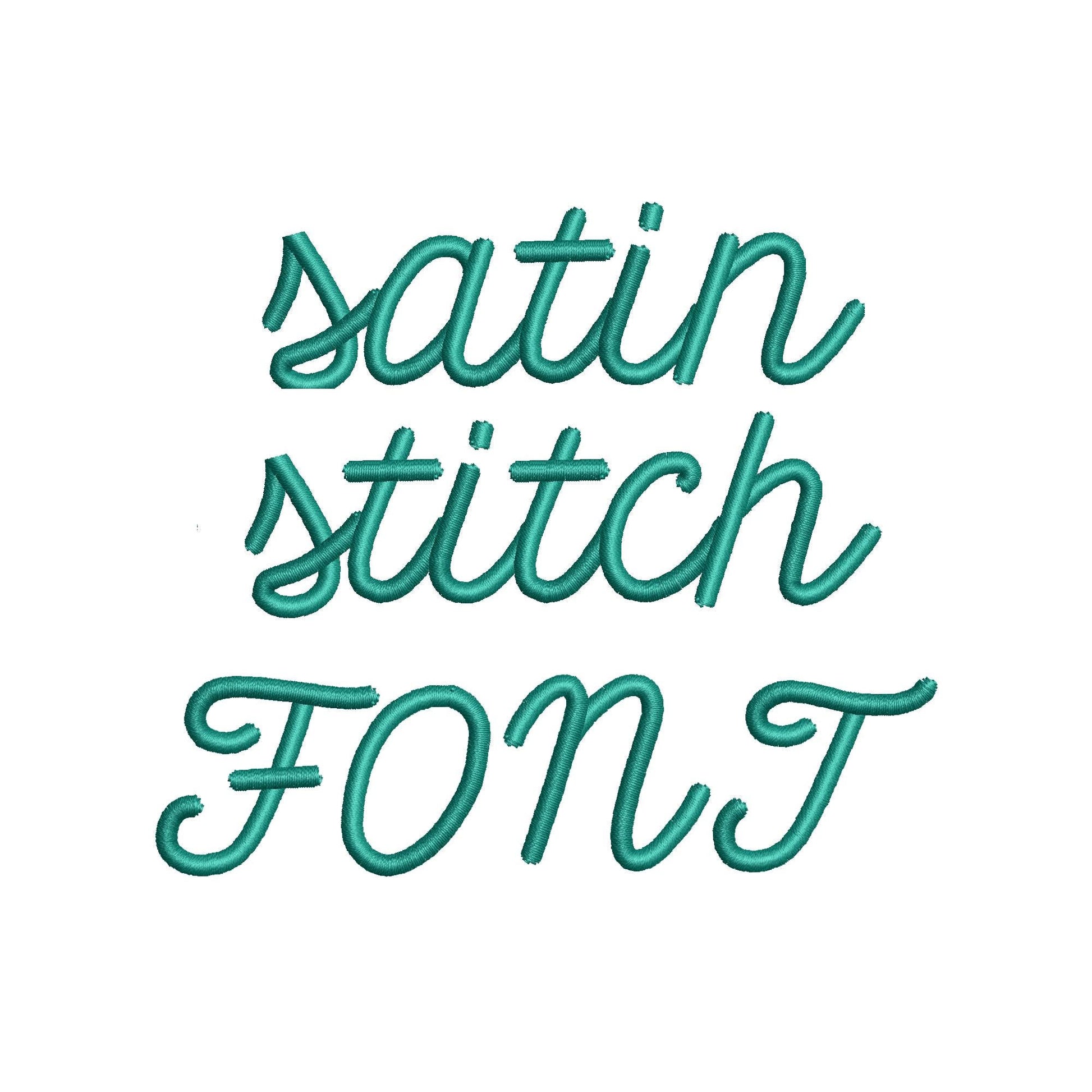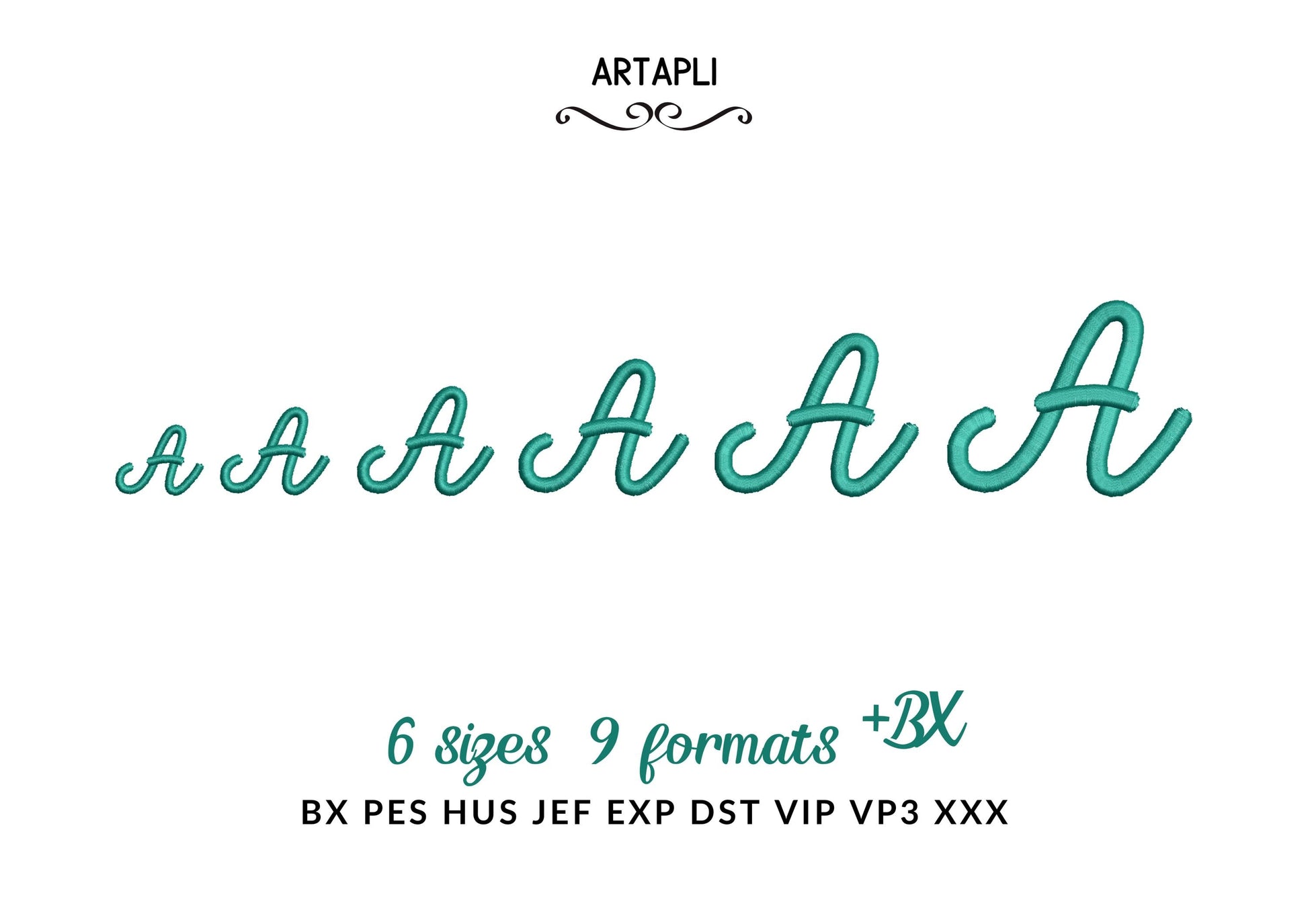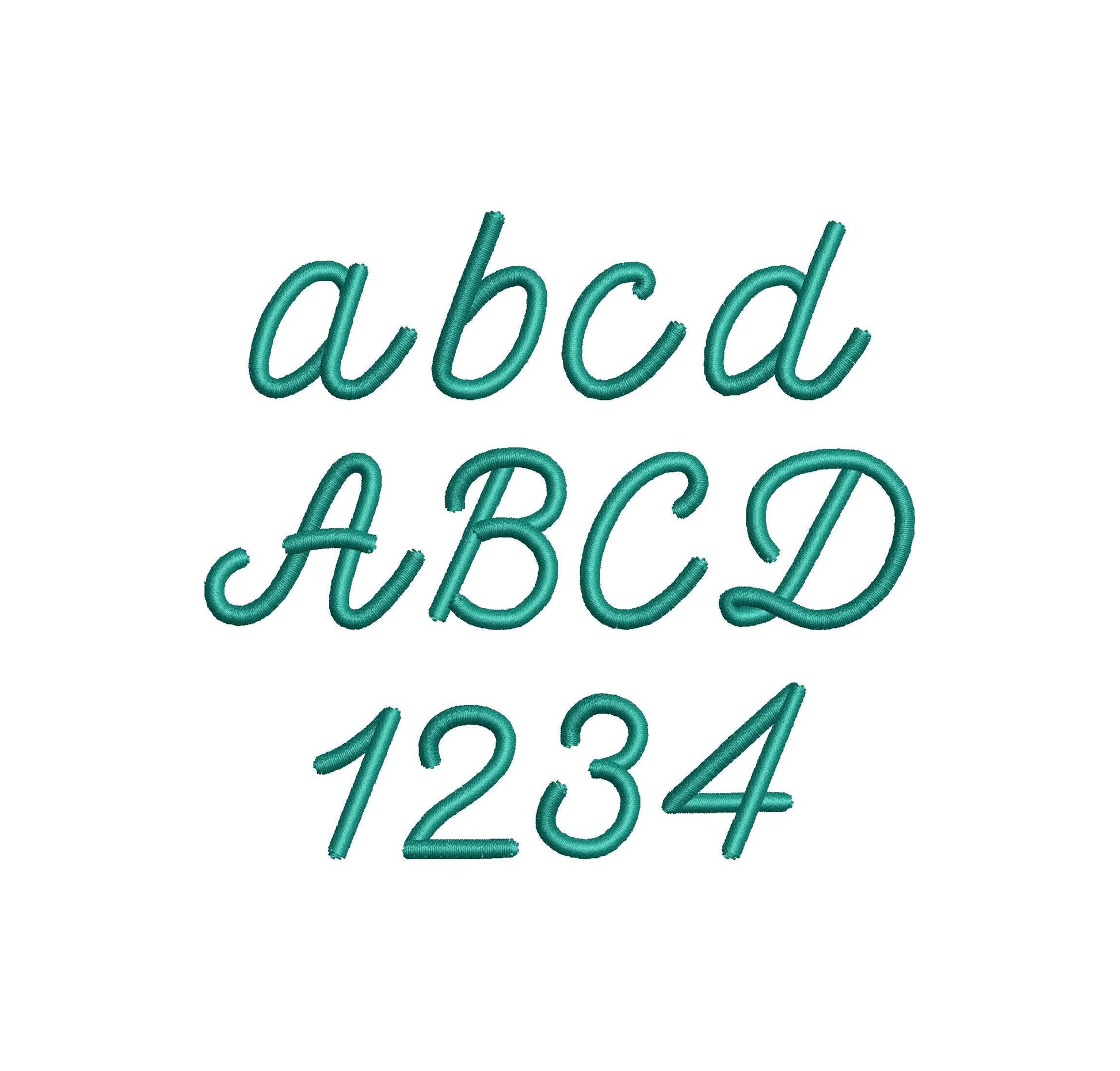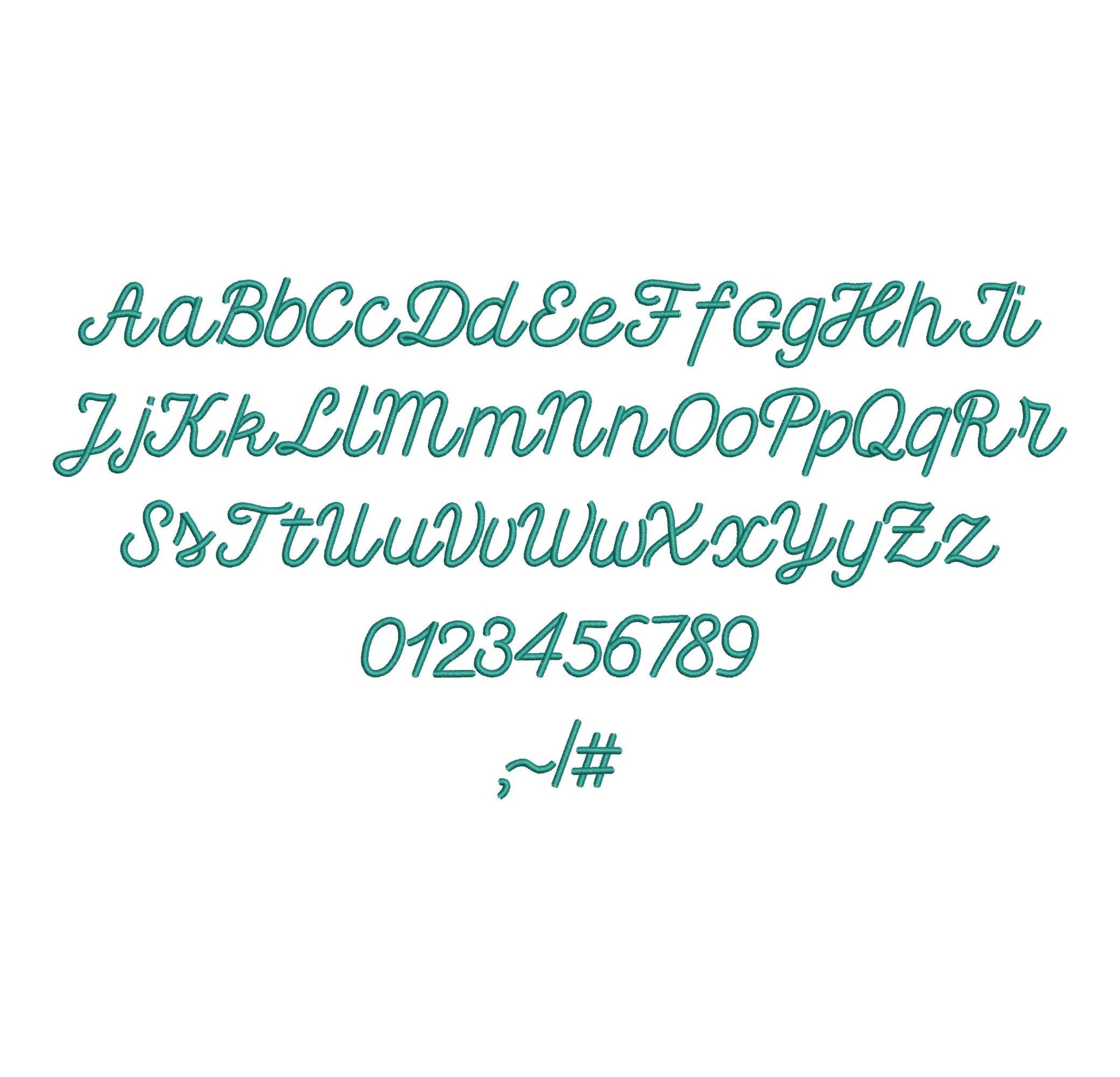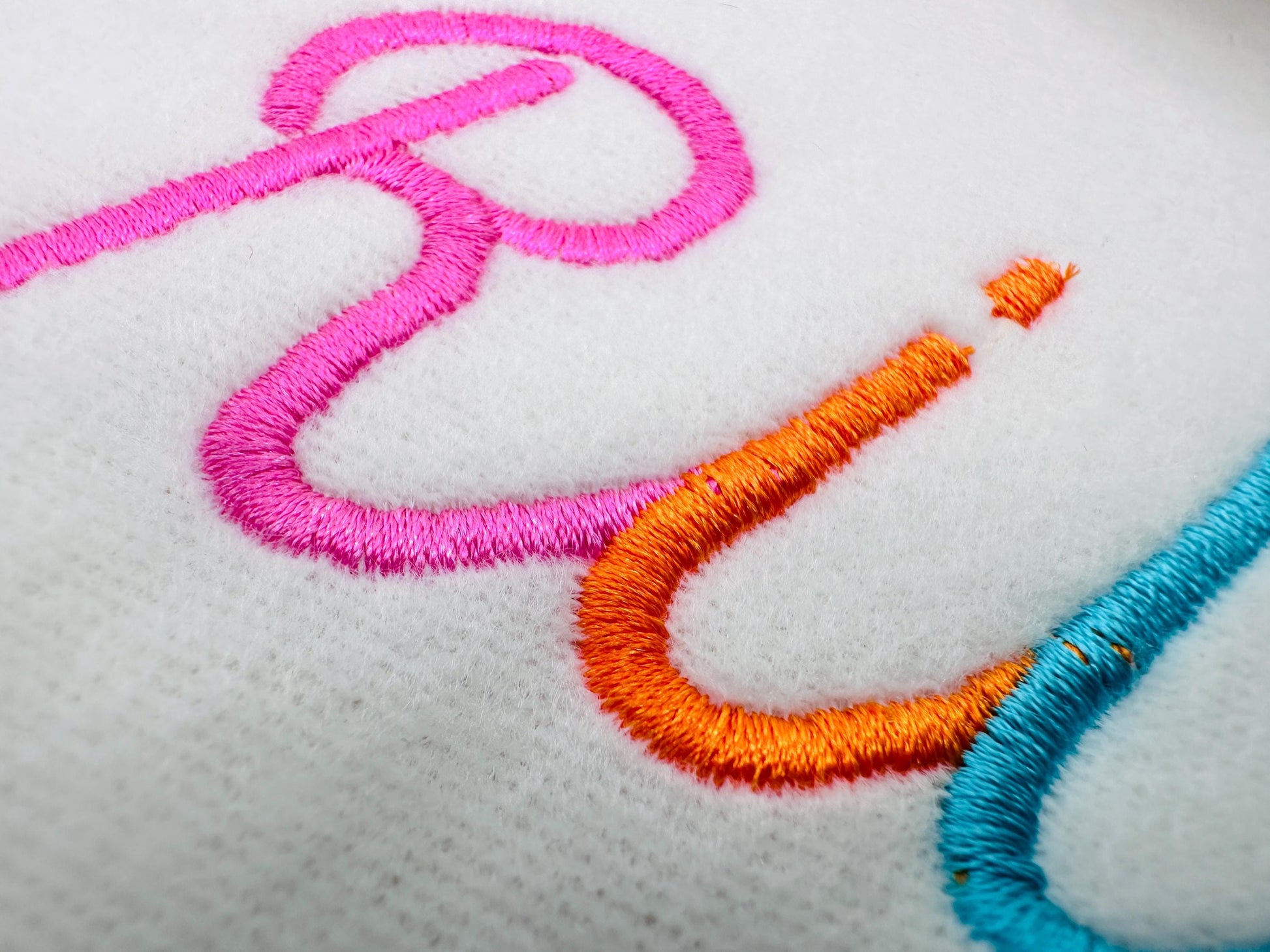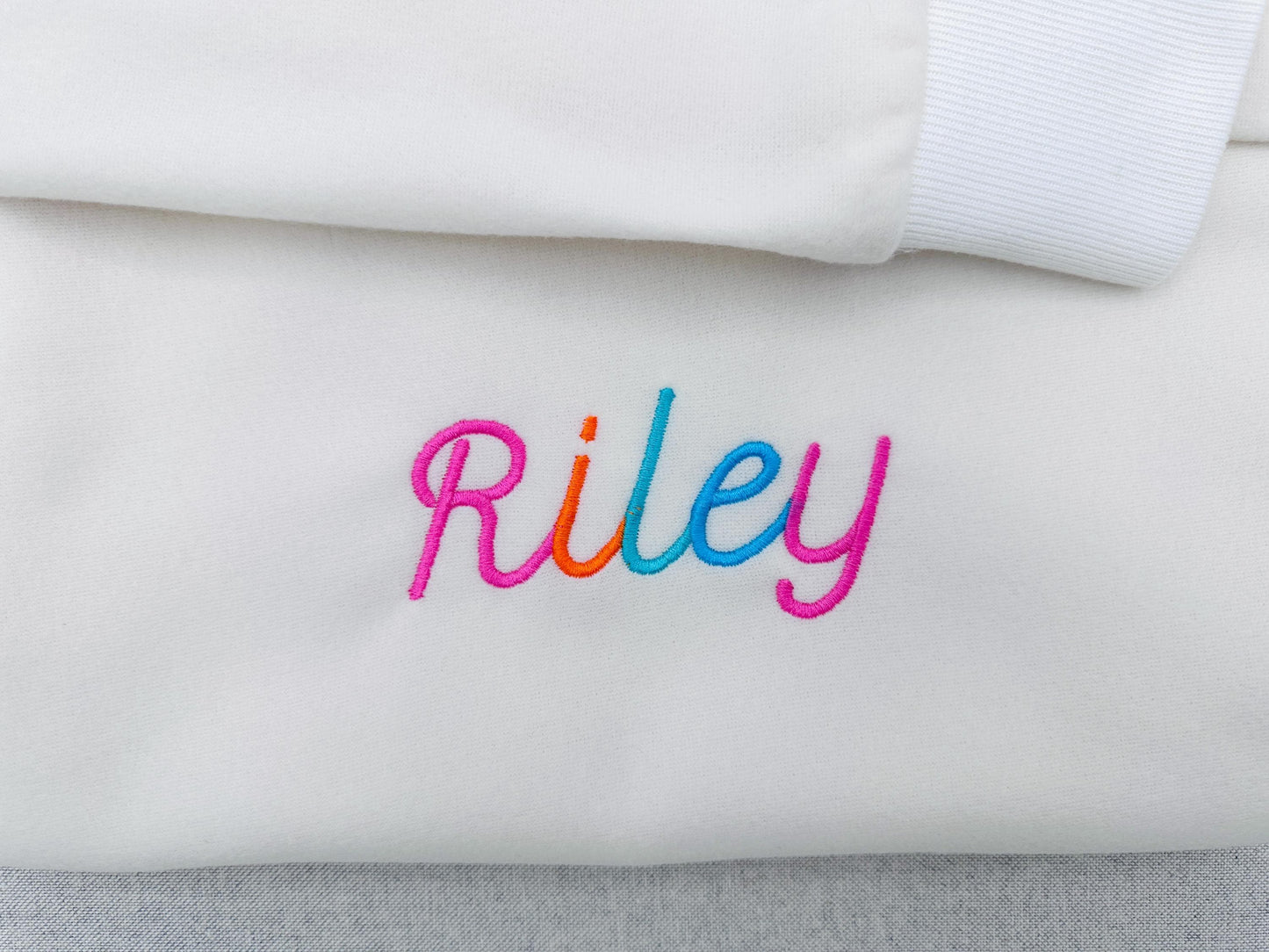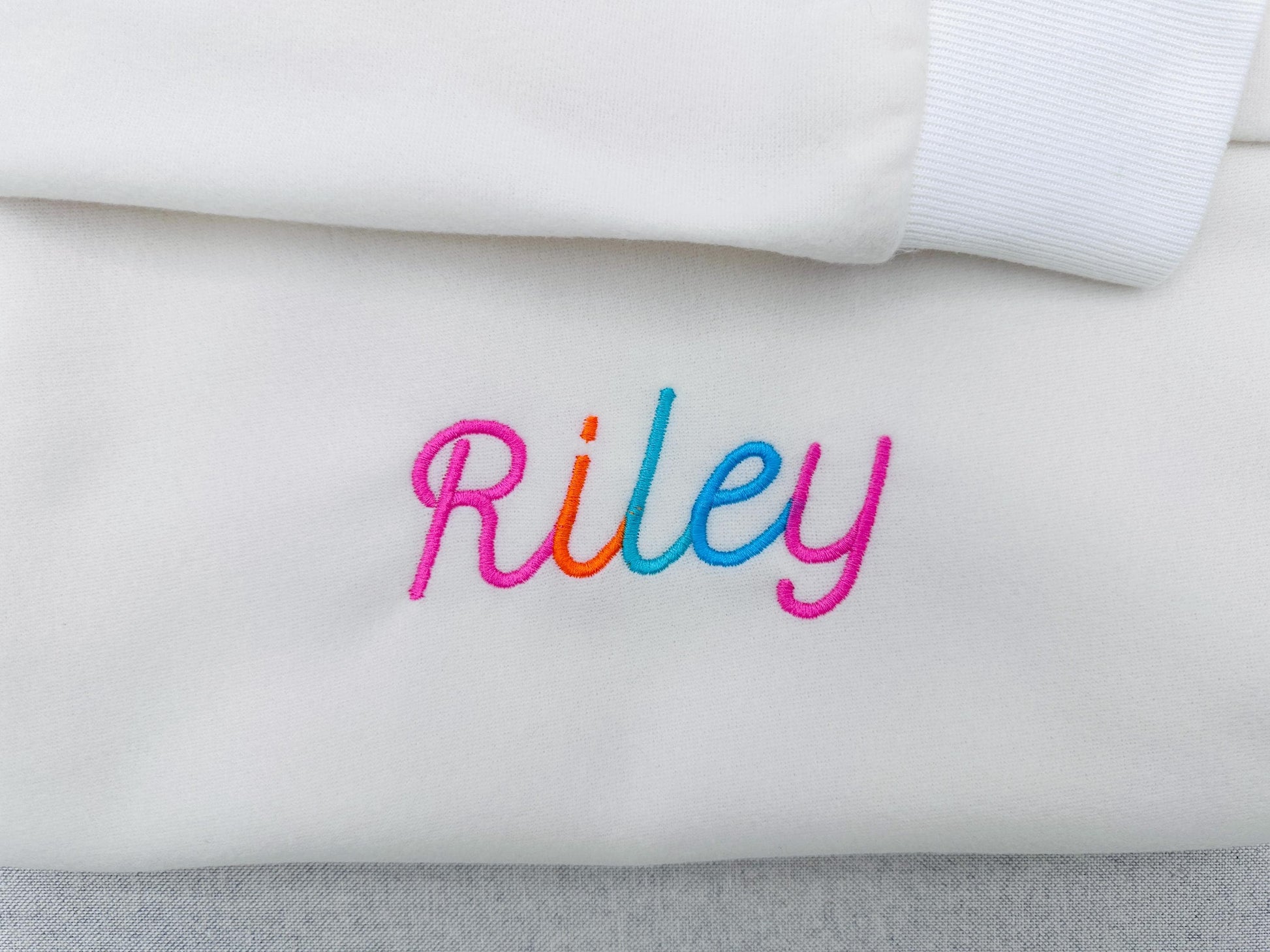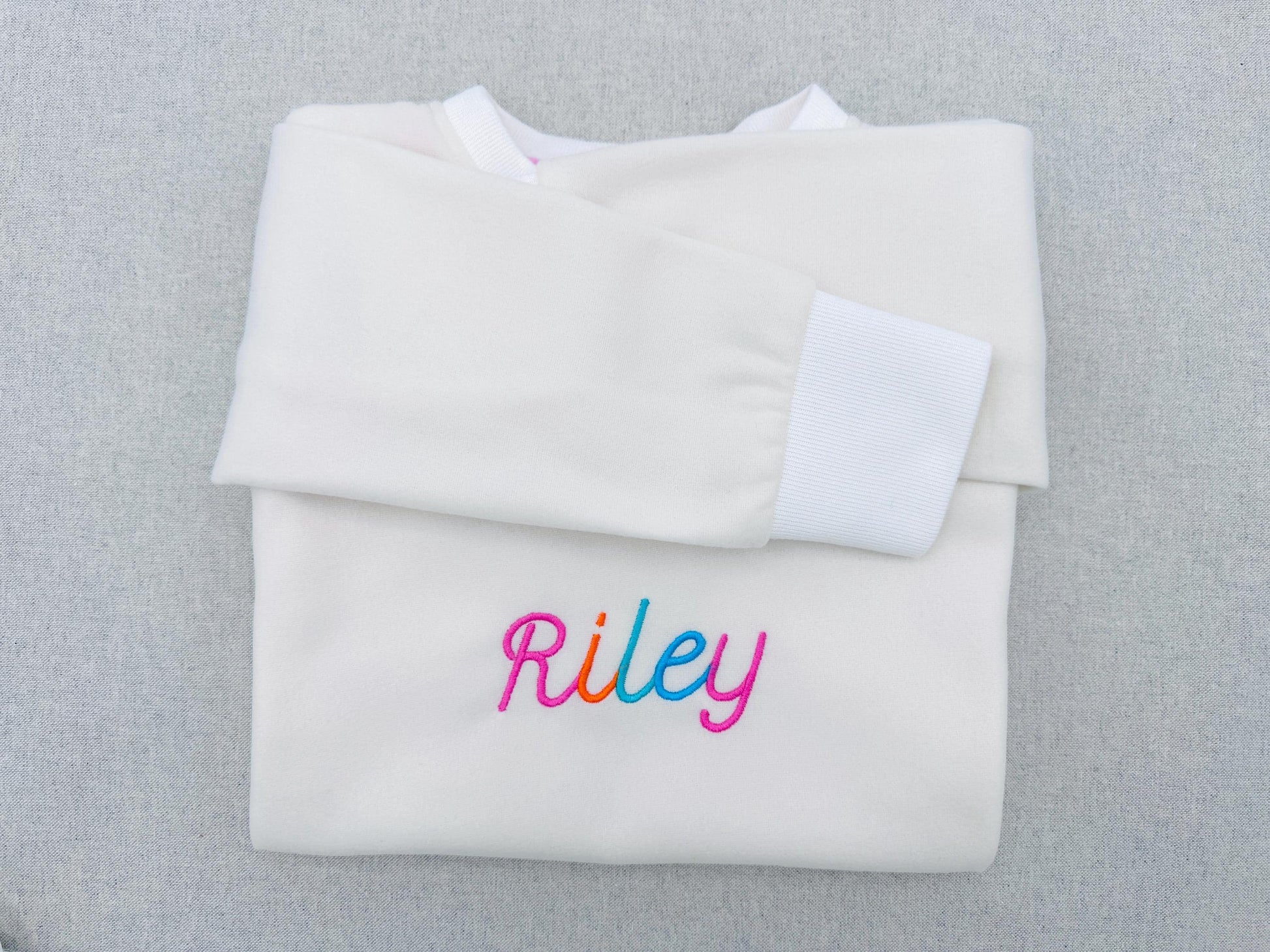
Sweet Satin Font Riley
The letters come in six sizes: 0.8, 1, 1.3, 1.6, 1.9 and 2.3 inches. Smooth satin stitch letters with a flowing handwritten shape. Includes uppercase and lowercase letters A to Z, numbers 0 to 9 and punctuation.
- Satin stitch script font
- 6 sizes, 0.8 to 2.3 in